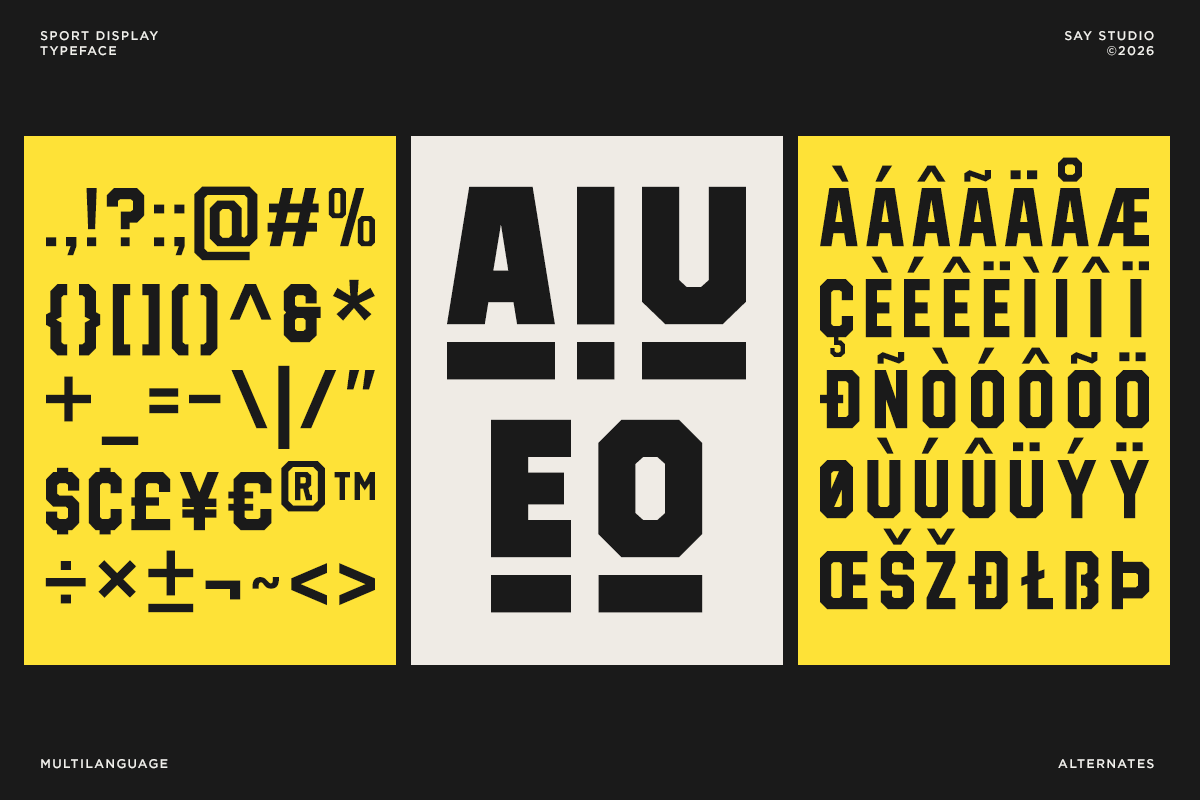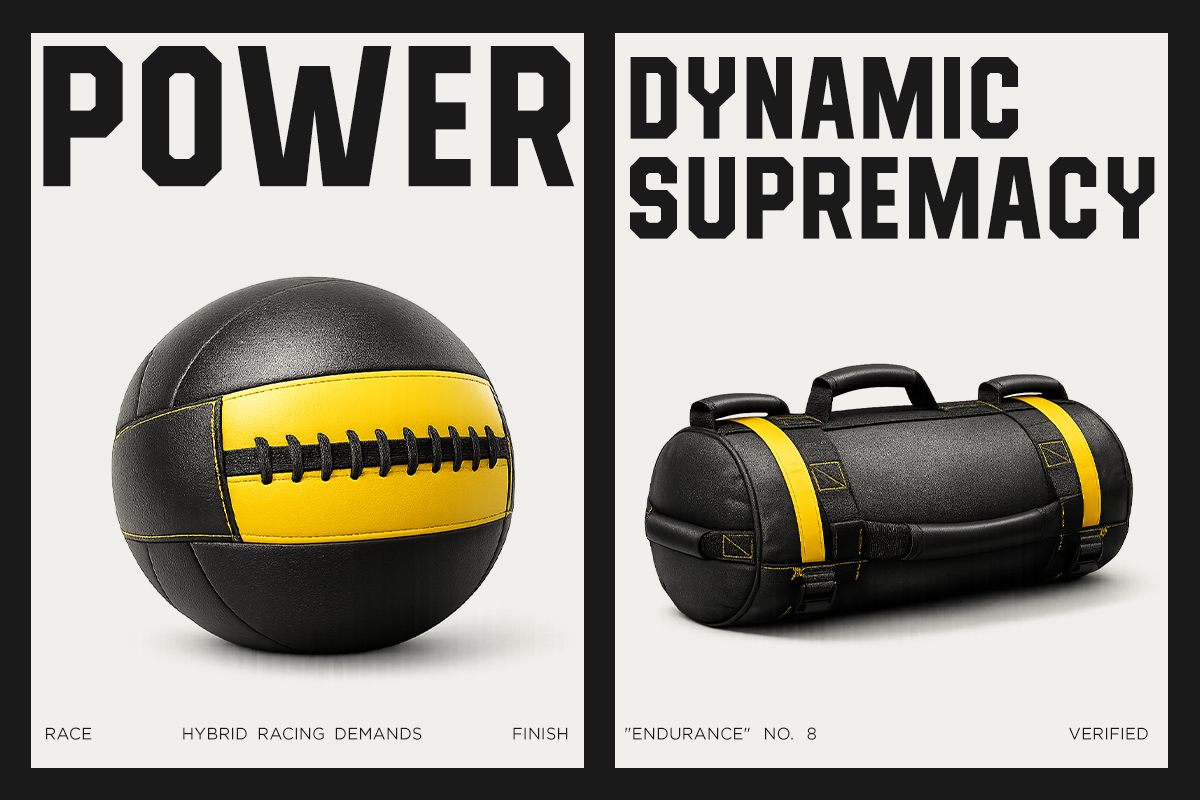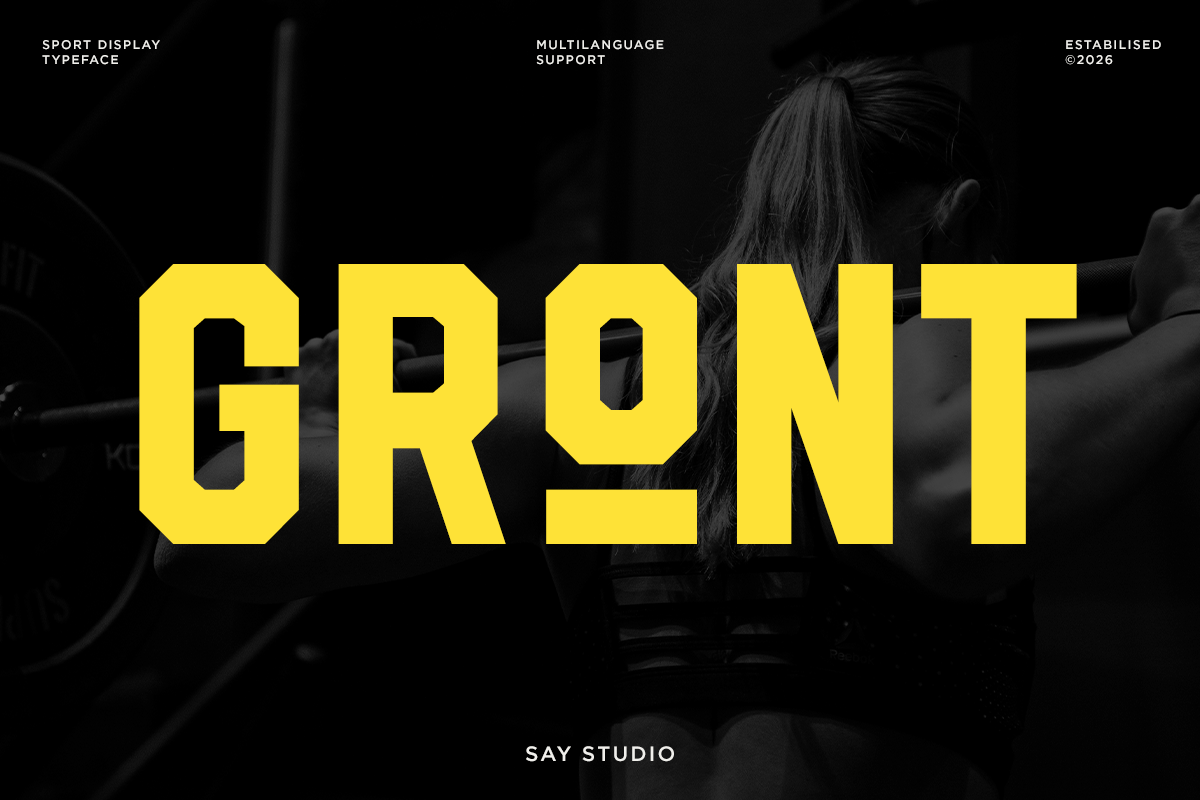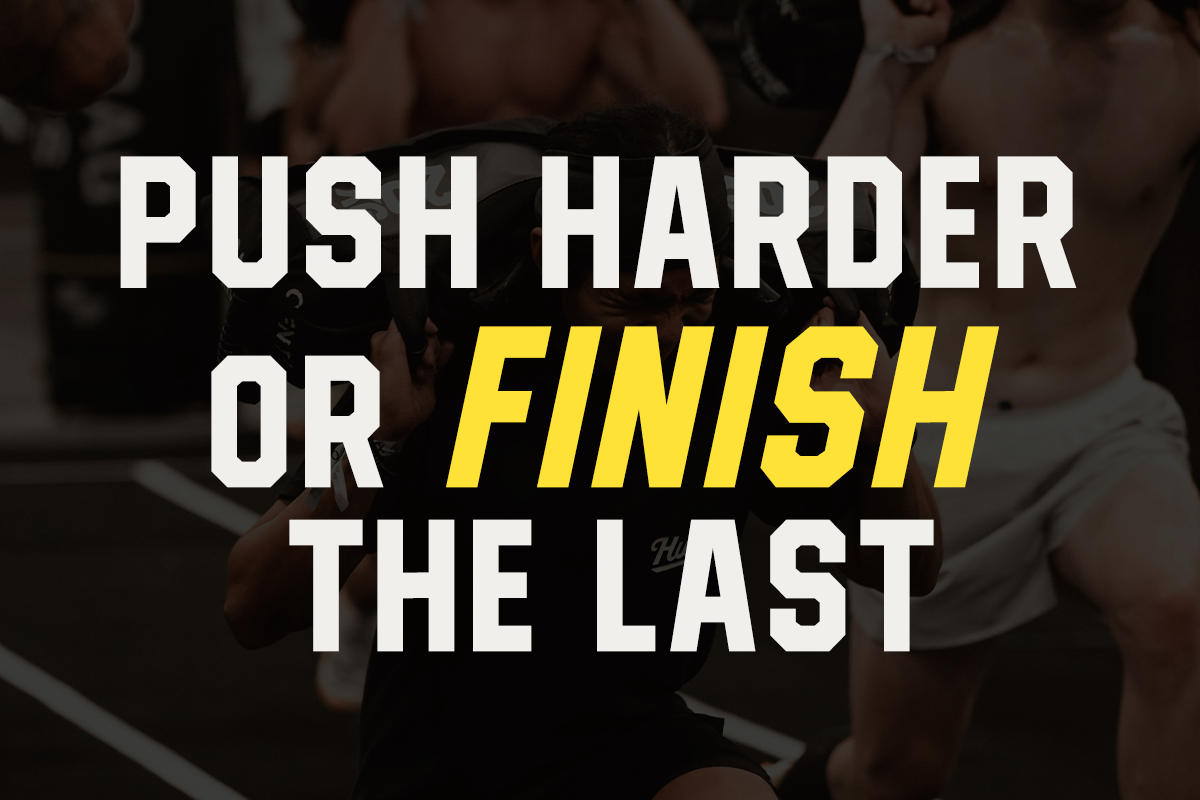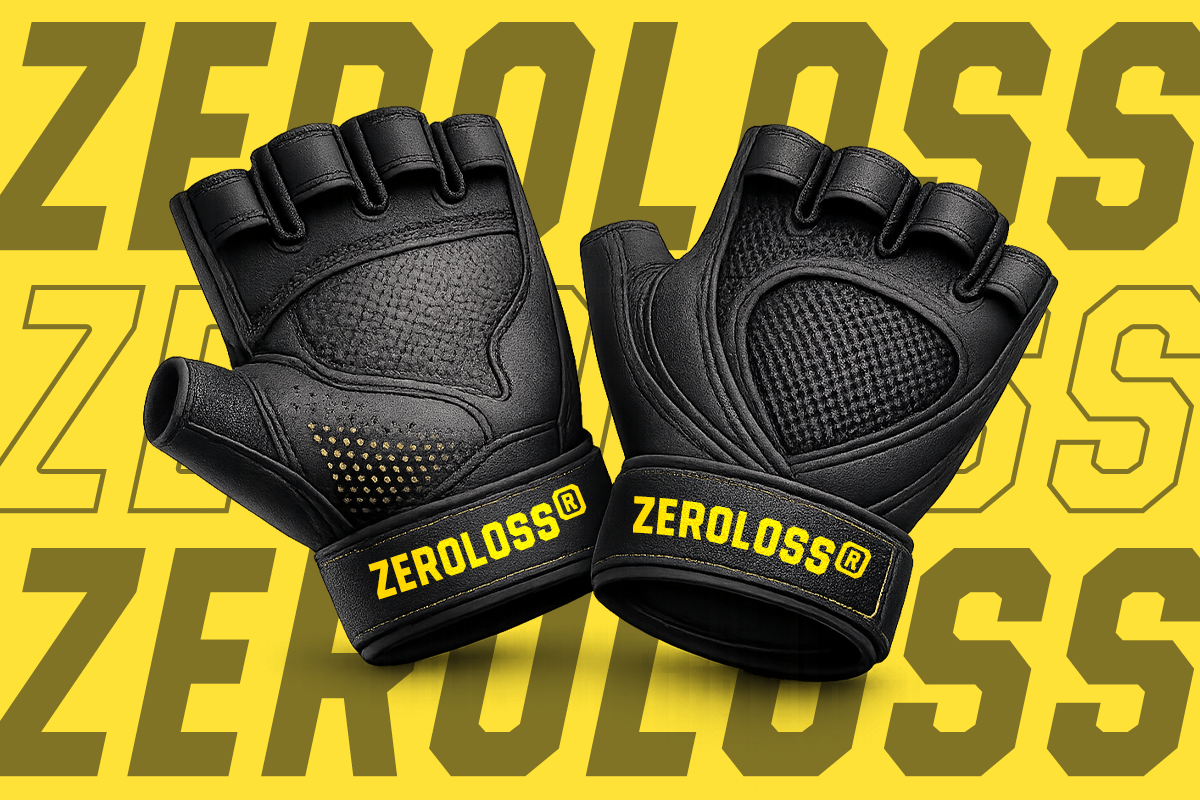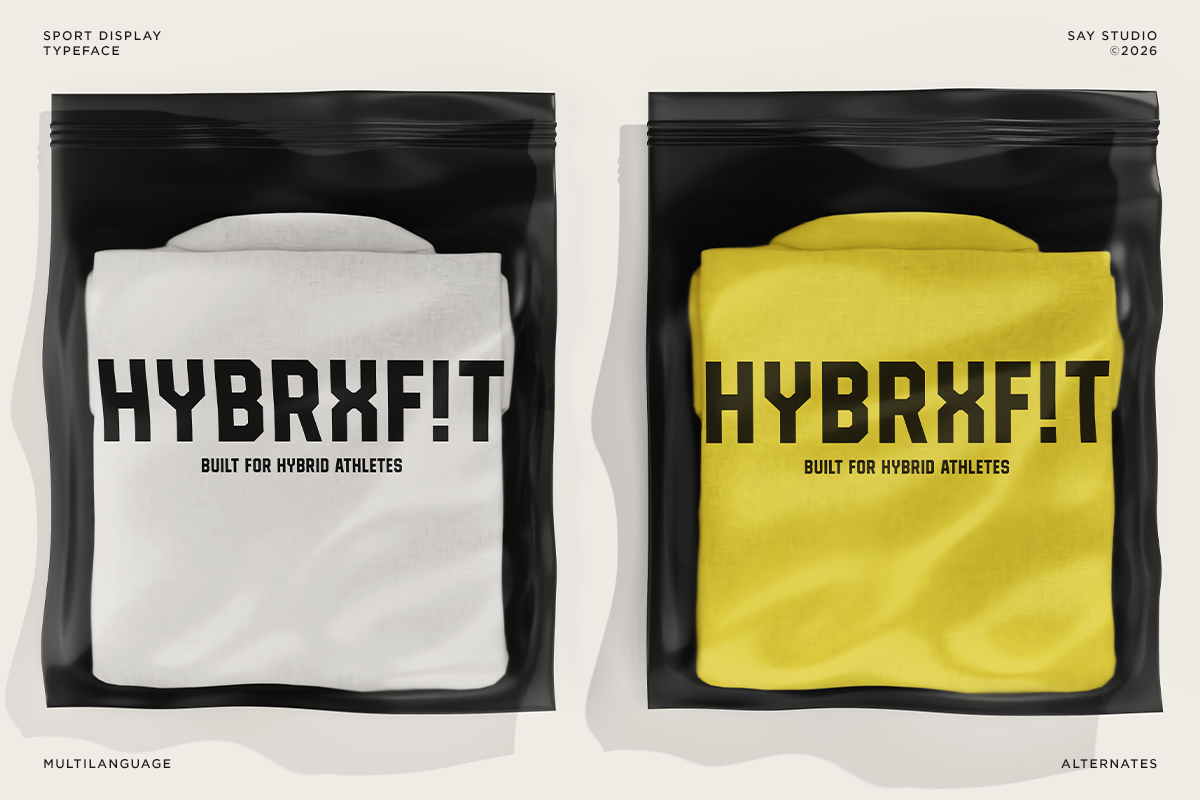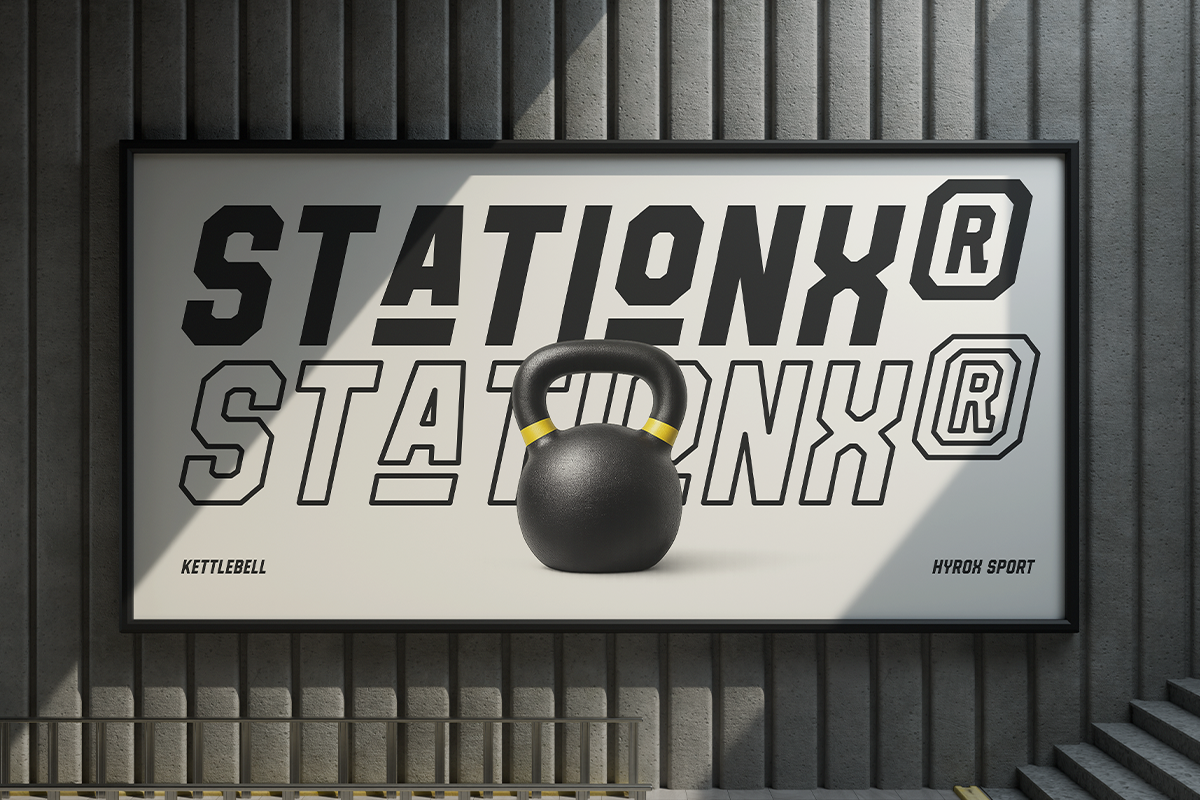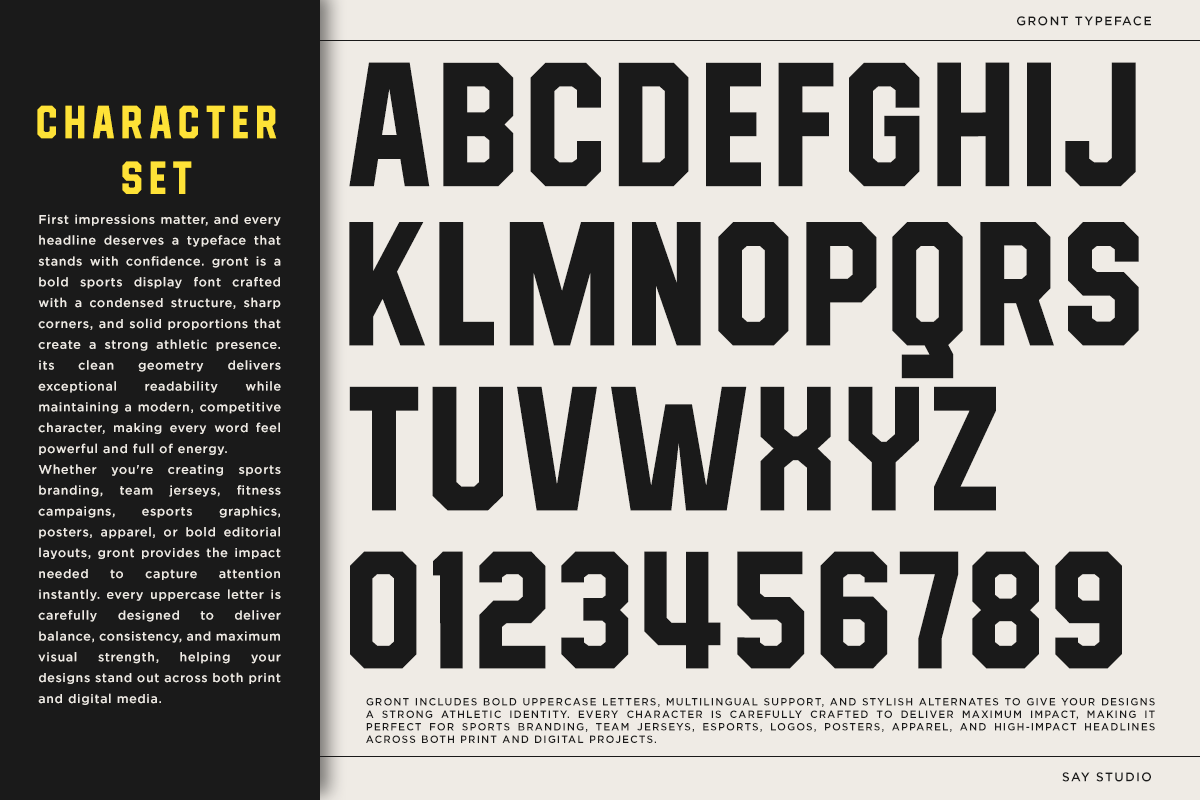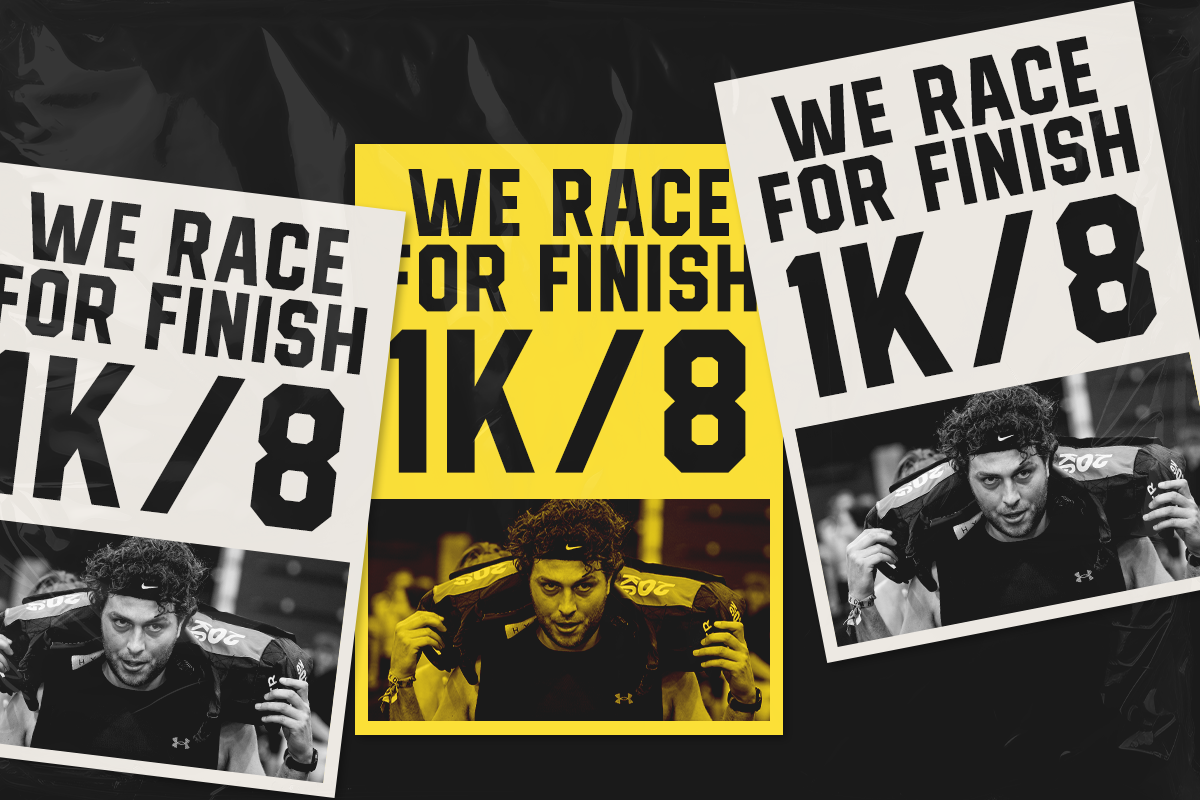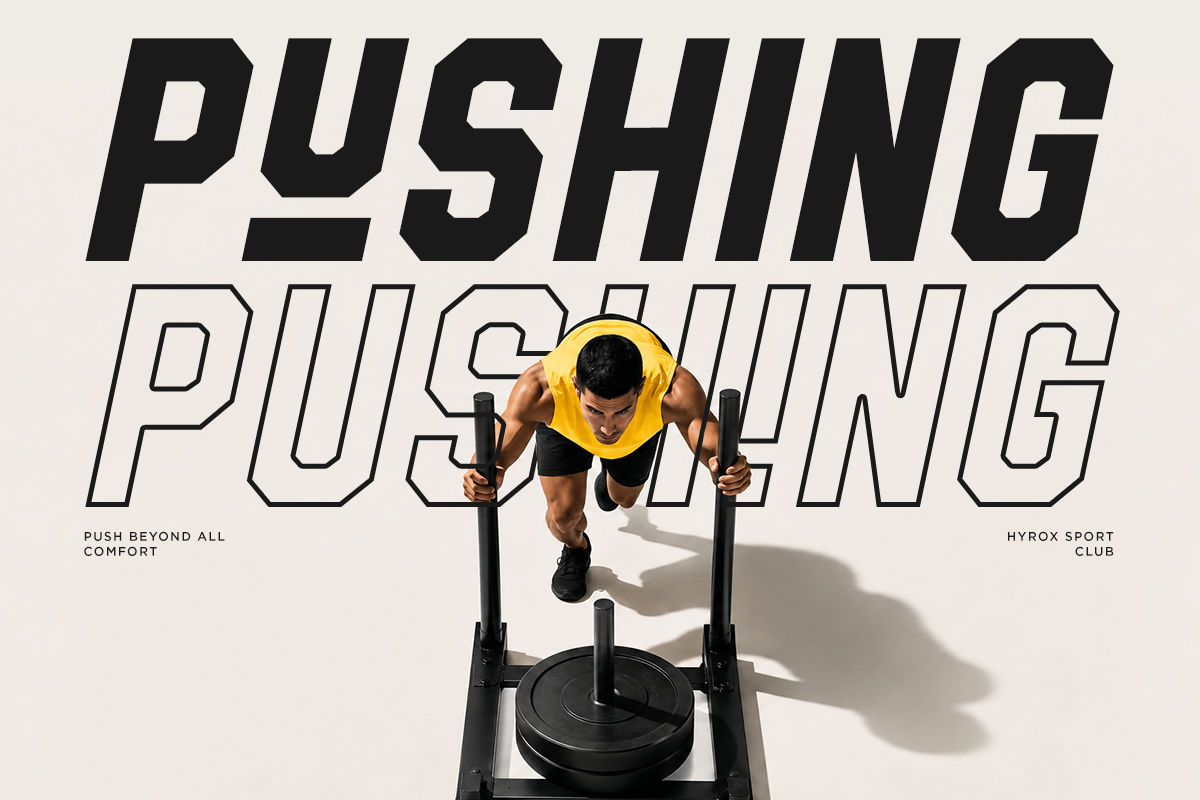
Gront - Bold Sports Branding Font
Gront is a bold sports branding font designed to deliver a strong, energetic, and competitive visual identity. Its heavy condensed structure and impactful letterforms make it perfect for designs that need to communicate power, speed, confidence, and determination.
Created with sports and athletic branding in mind, Gront works beautifully for gym identities, sports teams, fitness campaigns, workout apparel, athletic merchandise, racing graphics, event posters, promotional campaigns, and motivational designs. Its bold presence also makes it a great choice for streetwear, youth culture, packaging, editorial headlines, and modern advertising.
Whether you're building a powerful sports logo, creating an eye-catching fitness campaign, or designing bold typography for apparel and posters, Gront helps your message stand out with a confident and dynamic character. providing flexibility for both print and digital projects.